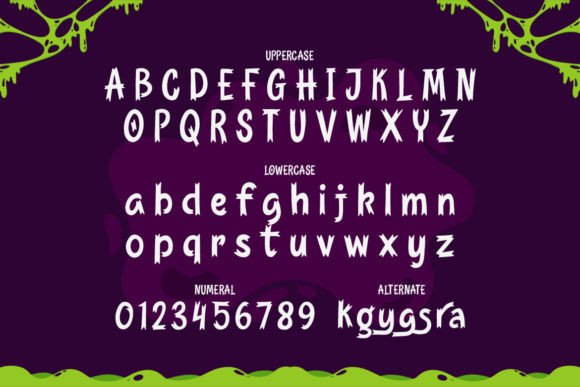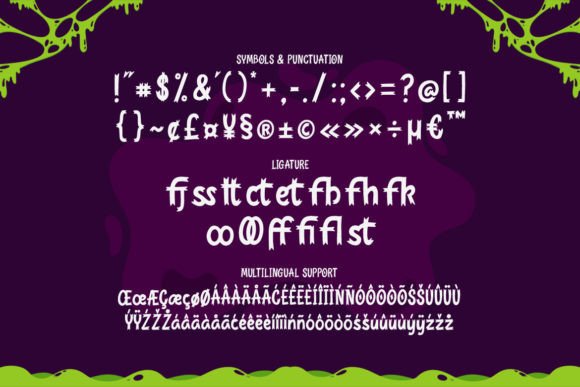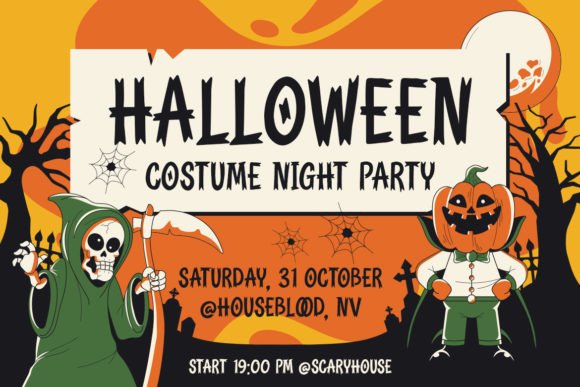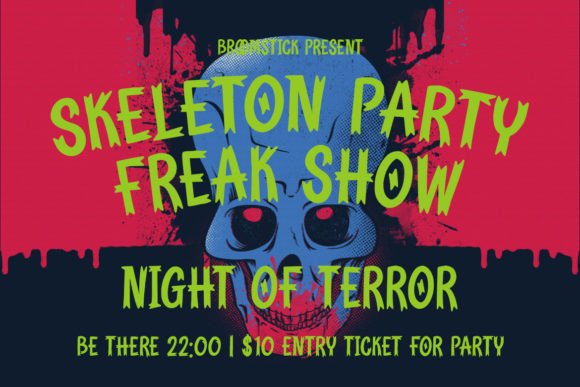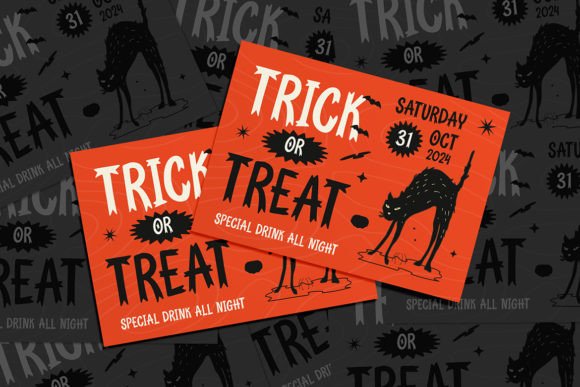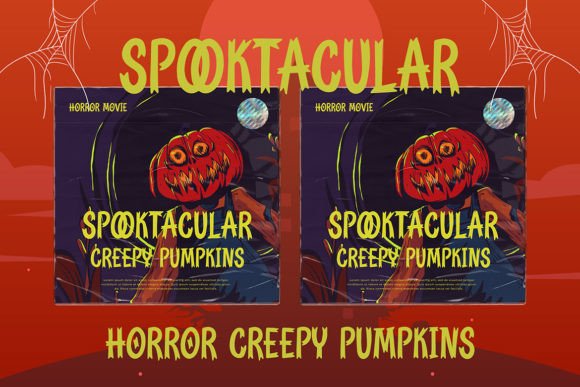
Broomstick Font: The Ultimate Choice for Dark and Spooky Designs
Are you a designer or crafter looking for a font that can add a touch of darkness and horror to your projects? Look no further than the Broomstick font. This display font is perfect for creating scary crafts, horror movie posters, t-shirts, and any other design that requires a spectacular and eerie look.
What is Broomstick Font?
Broomstick font is a dark, horror-looking display font that is designed to evoke a sense of fear and unease. Its unique and creepy design makes it perfect for a variety of projects, from Halloween-themed crafts to horror movie posters. The font is available for use on various platforms, including Adobe Creative Cloud, Canva, and Google Fonts.
Key Features of Broomstick Font
- Dark and Horror-Looking Design: The Broomstick font features a dark and eerie design that is sure to grab attention.
- Display Font: This font is specifically designed as a display font, making it perfect for headlines, titles, and other prominent text elements.
- Highly Versatile: The Broomstick font can be used on a variety of projects, from crafts and posters to t-shirts and digital media.
- Easily Readable: Despite its dark and horror-looking design, the Broomstick font is surprisingly easy to read, making it perfect for use on a variety of projects.
Uses for Broomstick Font
The Broomstick font is a highly versatile font that can be used on a wide range of projects. Here are some ideas to get you started:
- Scary Crafts: Add a touch of darkness and horror to your Halloween crafts, such as jack-o-lanterns, ghostly decorations, and spooky centerpieces.
- Horror Movie Posters: Create eye-catching posters for horror movies, complete with creepy taglines and eerie imagery.
- T-Shirts and Apparel: Design spooky t-shirts, hoodies, and other apparel items that are sure to turn heads.
- Digital Media: Use the Broomstick font in your digital media projects, such as videos, animations, and social media graphics.
Tips for Using Broomstick Font
Here are some tips for using the Broomstick font in your projects:
- Use it Sparingly: Because of its bold and attention-grabbing design, it’s best to use the Broomstick font sparingly. Use it for headlines and titles, and pair it with a simpler font for body text.
- Experiment with Colors: The Broomstick font looks great in a variety of colors, from bold and bright to dark and muted. Experiment with different colors to find the perfect look for your project.
- Pair it with Other Fonts: Don’t be afraid to pair the Broomstick font with other fonts to create a unique and interesting look. Try pairing it with a simple sans-serif font or a elegant script font.
The Broomstick font is a highly versatile and attention-grabbing font that is perfect for designers and crafters looking to add a touch of darkness and horror to their projects. With its unique and creepy design, it’s sure to grab attention and leave a lasting impression. Whether you’re creating scary crafts, horror movie posters, or spooky t-shirts, the Broomstick font is the perfect choice.